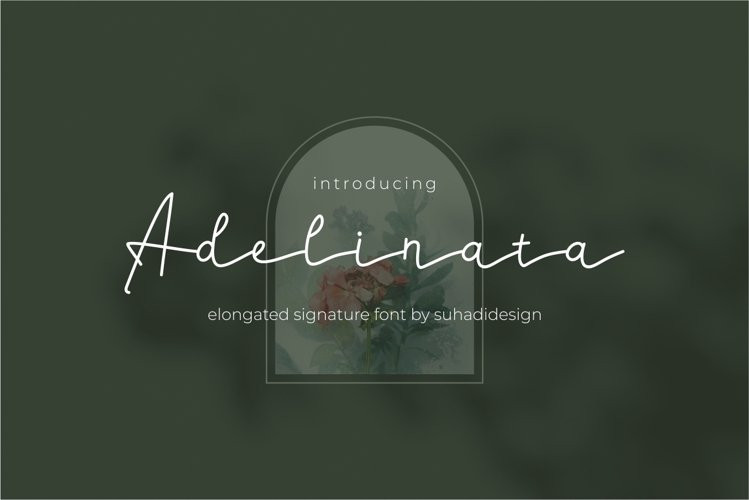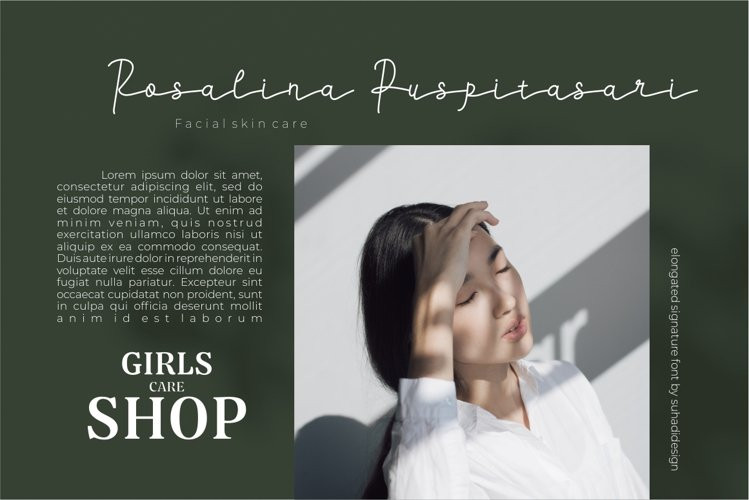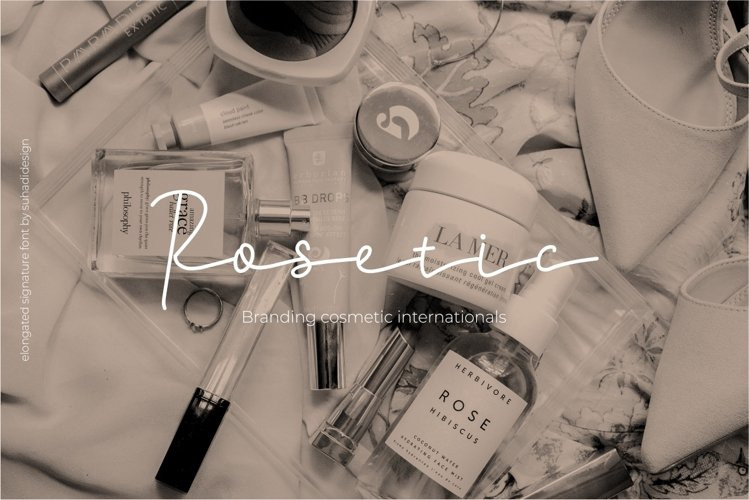
Adelinata Font
Adelinata FontAdelinata – elongated signature font
According to the market demand, the font is more inclined to the signature font, so I decided to make this signature font in your view. Adelinata font is a slightly elongated, simple and very popular different font, comes with a modern style hoping to be accepted by the market. We keep this font looking elegant, classy, ​​easy to read, stylish, attractive and easy to use. Adelinata Font is a great choice for watermarks on photography, signature or signature logo designs, business brand names, quotes, album covers, beauty, business cards, packaging and many other design projects. From business cards to photo watermarks, The Adelinata is here to take your work to the next level.
Adelinata style will make you love writing your name or your business name. Keep following us for the next font creation update